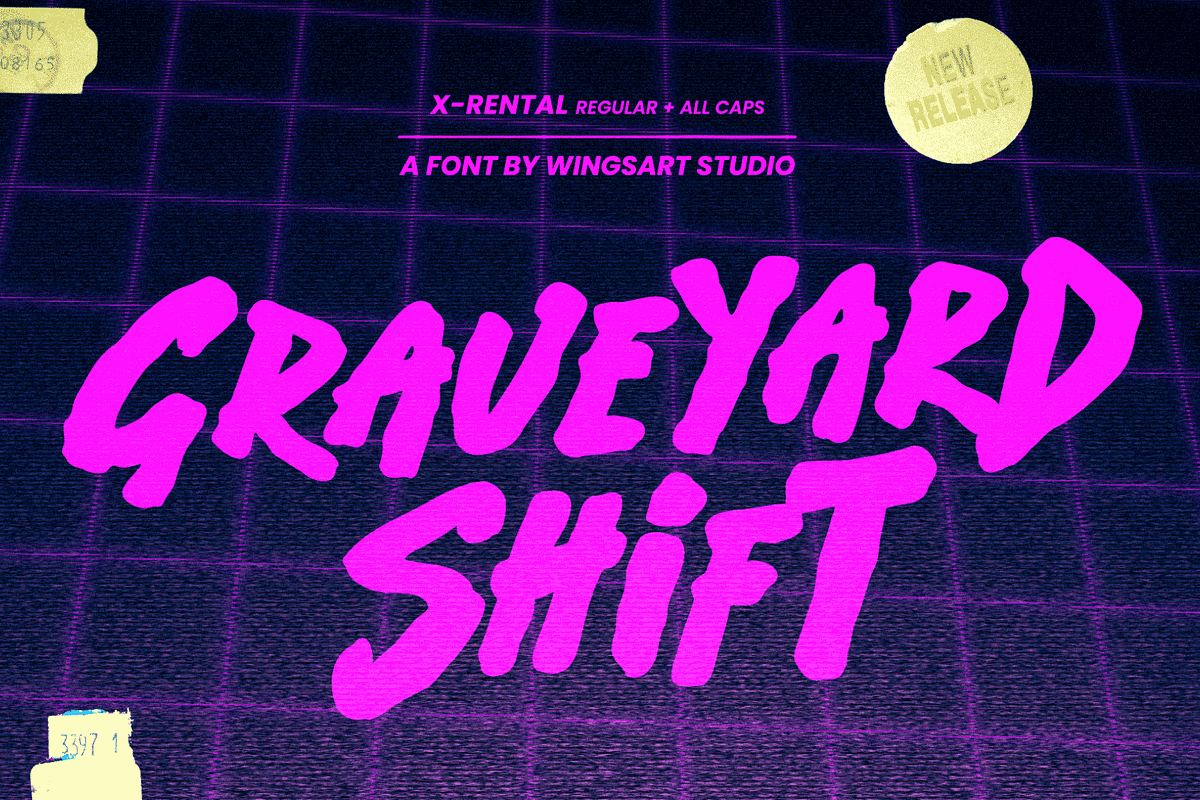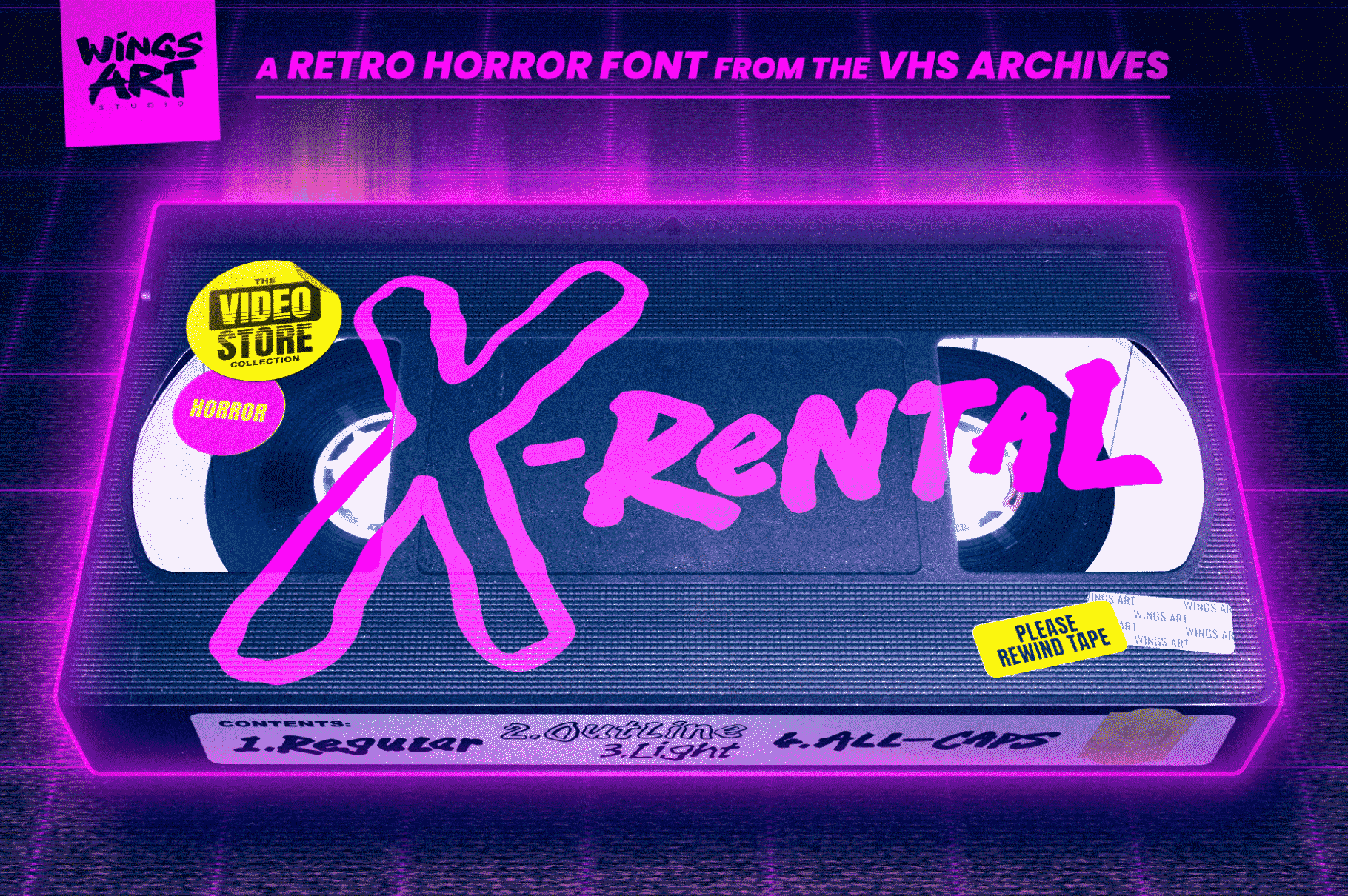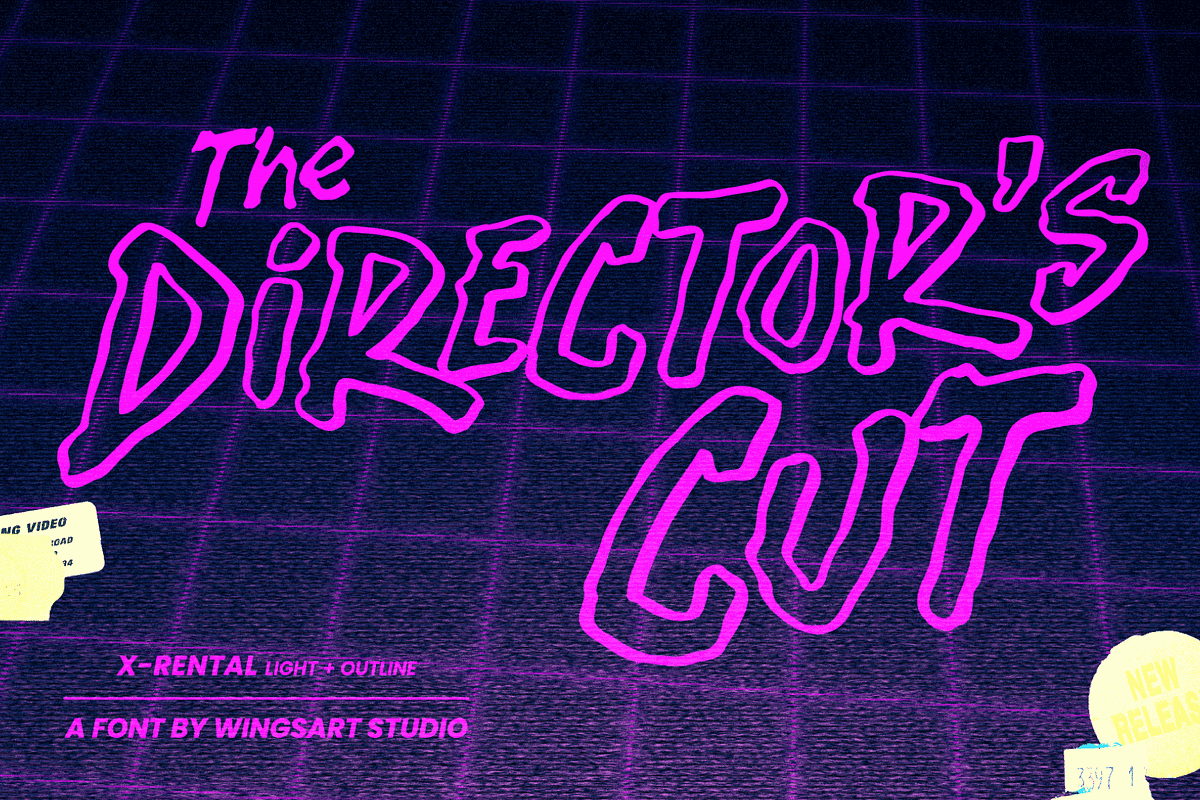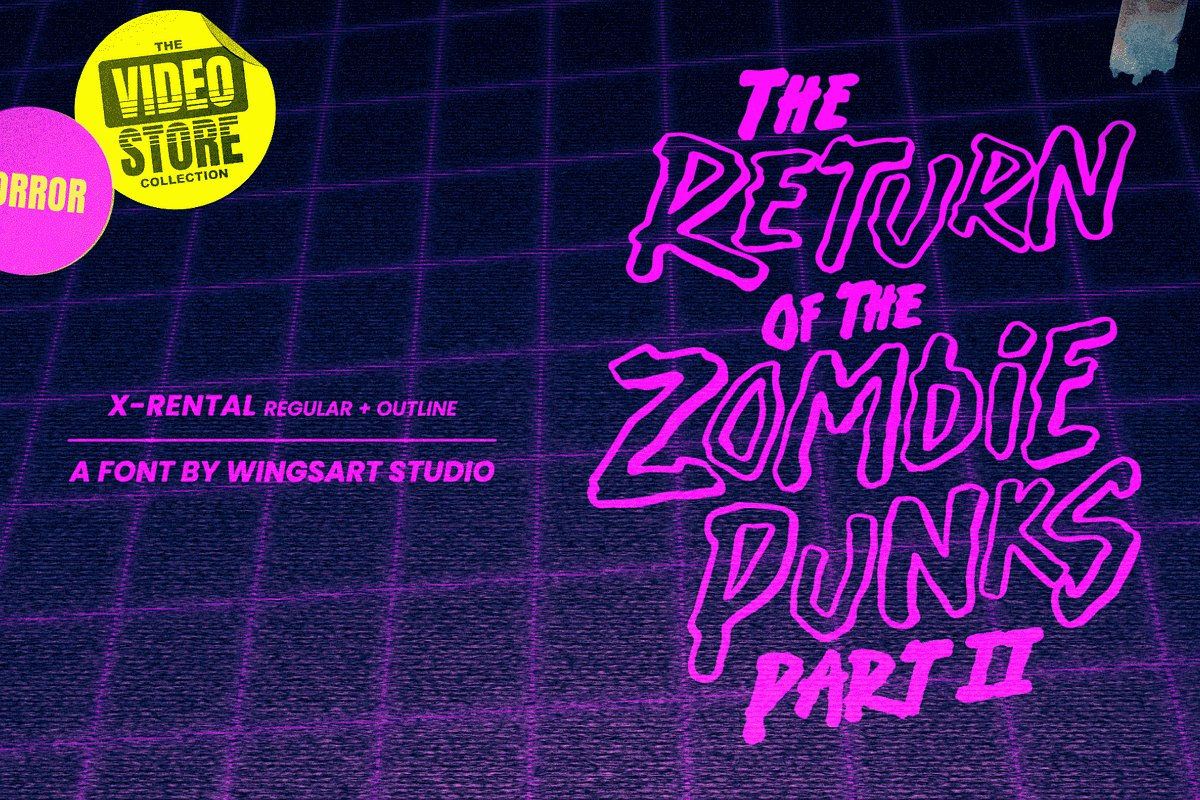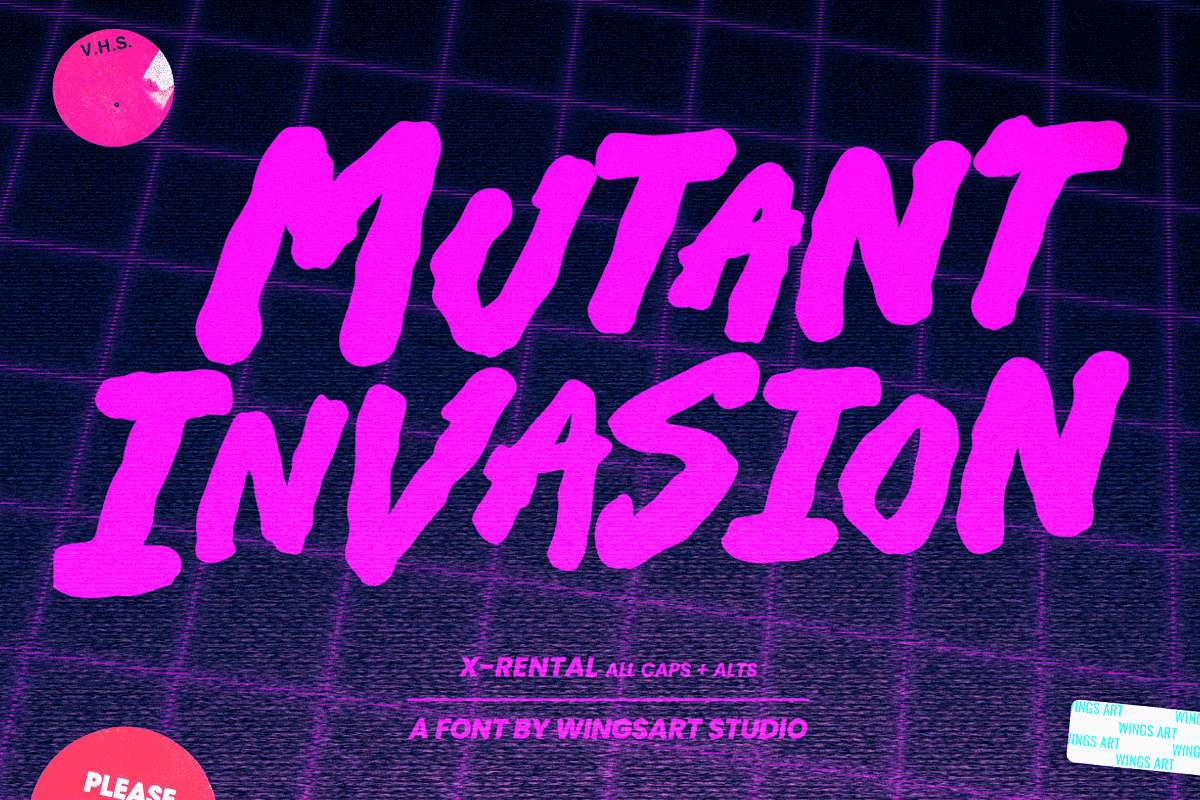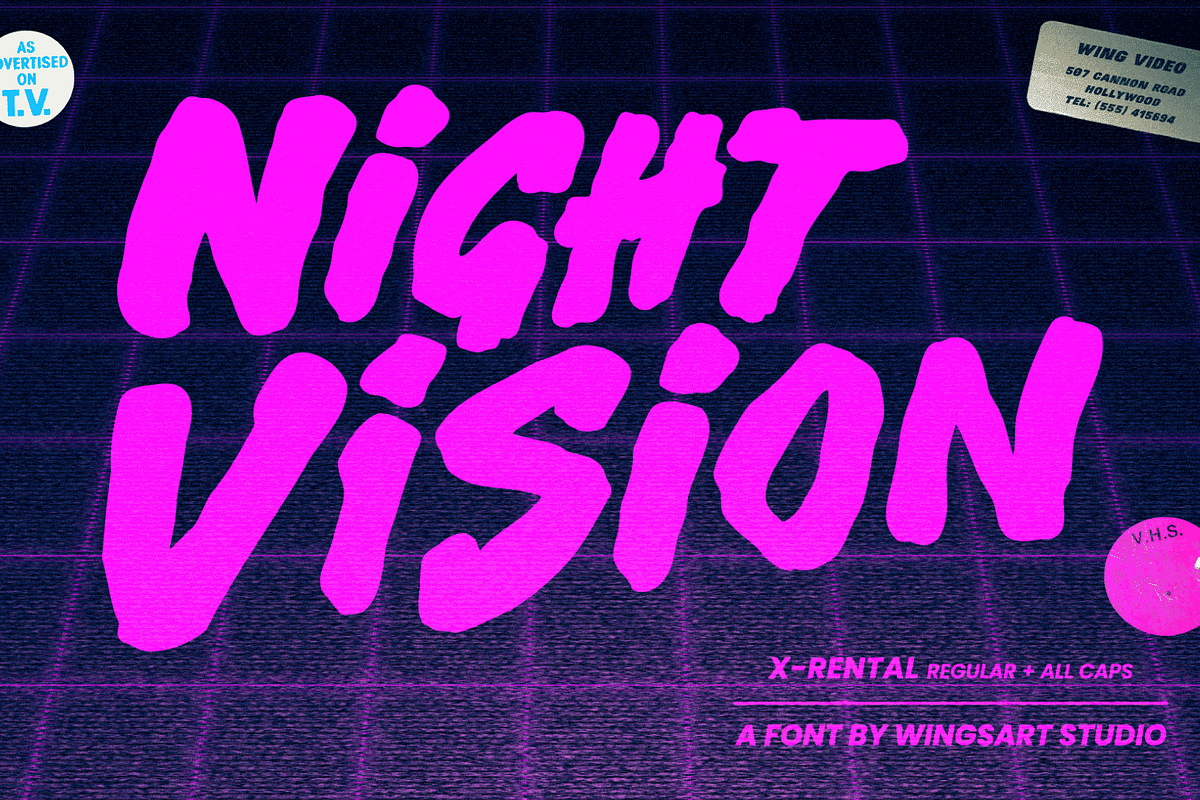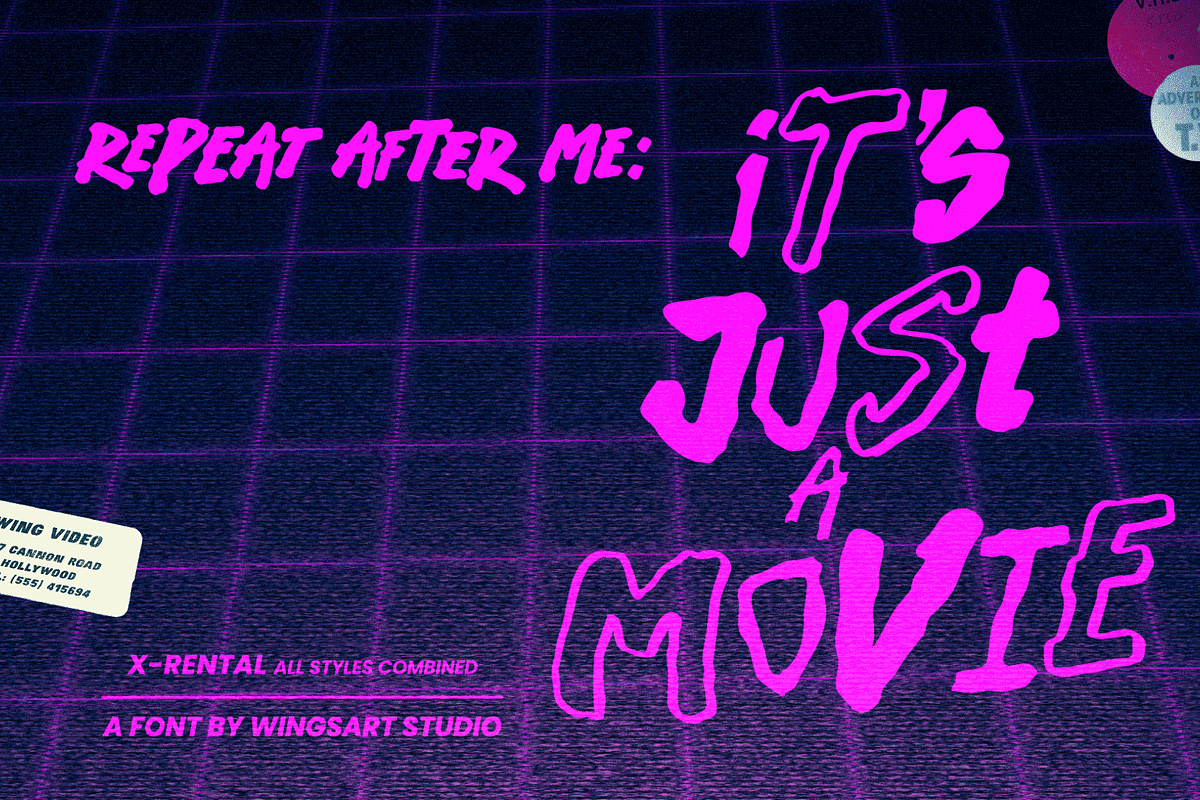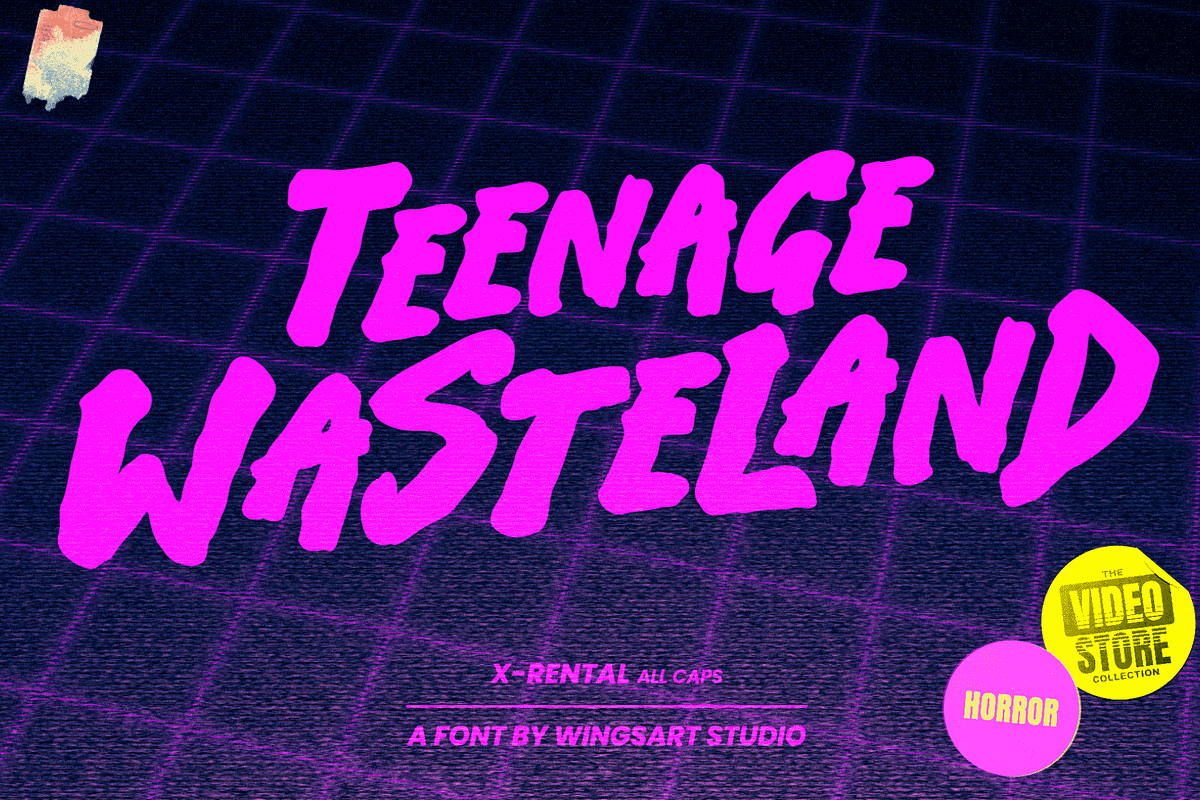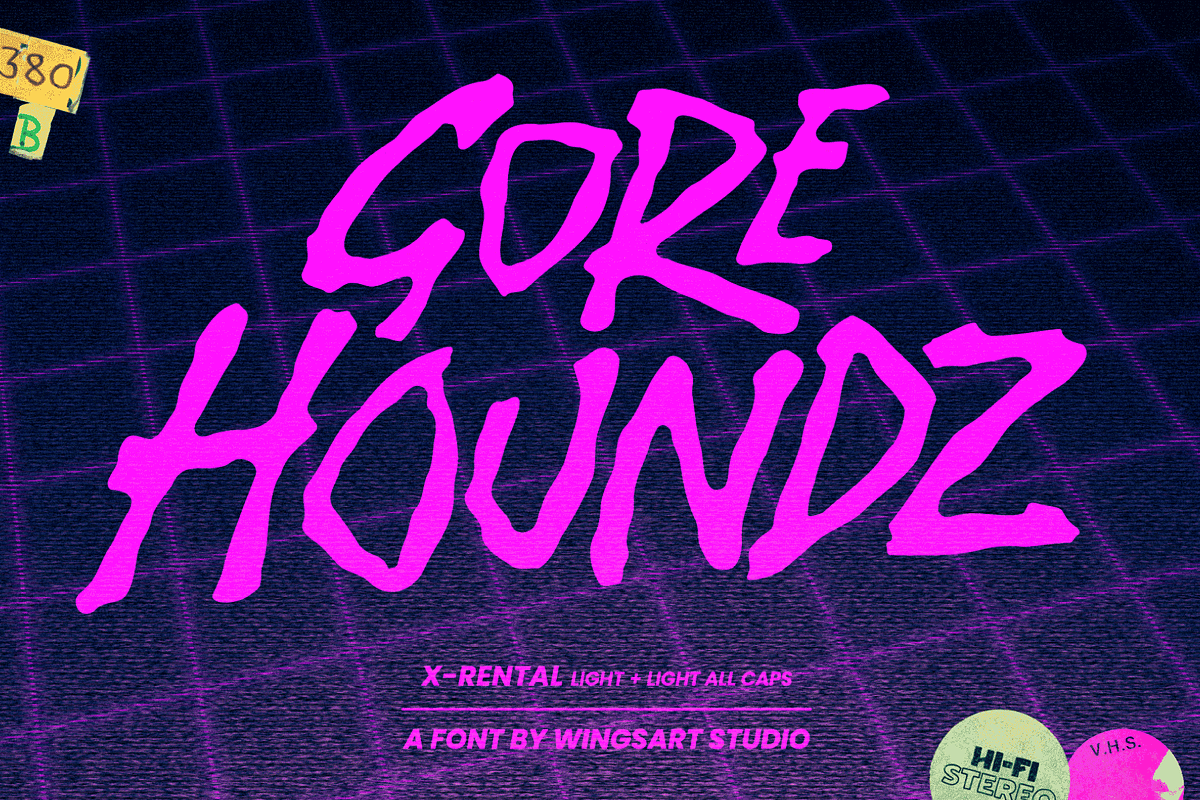
X-Rental - 1980s Retro Horror Font
X-Rental - A Retro Horror Font Deep From the VHS Archives
Introducing a font that travels back to a time to when movies came on VHS tapes and lived inside your local video rental store. Those who remember the 1980s and 90s will tell you of browsing through countless boxes, each competing for attention through outlandish cover art and hyperbolic titles drawn with eye-catching lettering. “X-Rental” aims to revisit this bygone era with a versatile font family drawn in brush, pen and ink that perfectly captures the thrill of the Friday night horror movie.
The X-Rental Font offers a complete set of uppercase and lowercase characters, along with numerals, punctuation, symbols and language support. You’ll find Regular, Outline, Light and All Caps styles, each with their set of alternatives, so you can avoid ever having to repeat you ee’s, tt’s and oo’s - essential for truly hand-made look.
With it’s low-fi, spontaneous look, X-Rental is perfect for horror themed projects such as film titles and trailers, podcasts, book covers or magazine articles, and offers lots of creative options to play with. Enjoy!